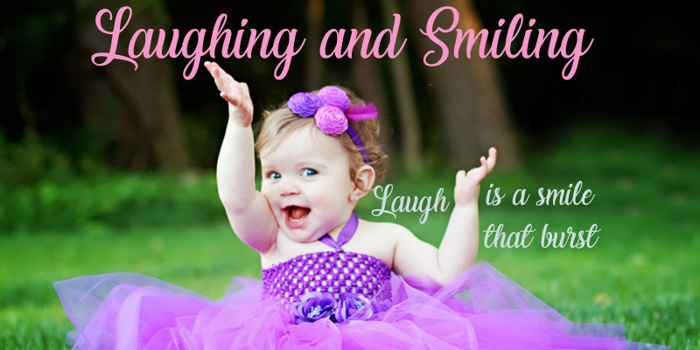
Laughing and Smiling Font
A bold, bouncy casual cursive with heavy cheerful letterforms — happy handwriting for greeting cards, feel-good quotes, and playful headlines. Letters only: no numbers or punctuation. Free for personal use; contact the designer for commercial use.